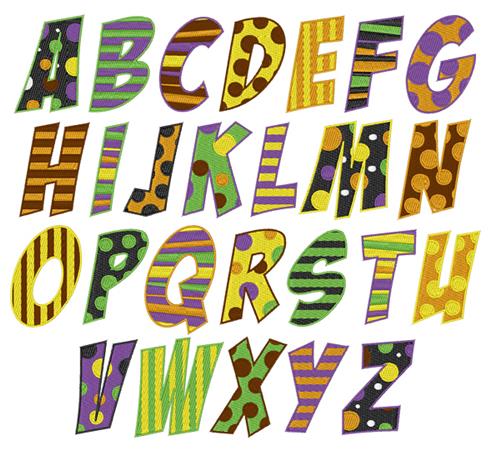
Concord Collections is happy to present Halloween Pattern machine embroidery font which has Vibrant decorative machine embroidery font with playful Halloween patterns ideal for stitching on seasonal home décor items like pillows or table runners. Available in PES, DST, and 11 other formats. included. If you would like to view more embroidery fonts and alphabets please search our embroidery fonts page.